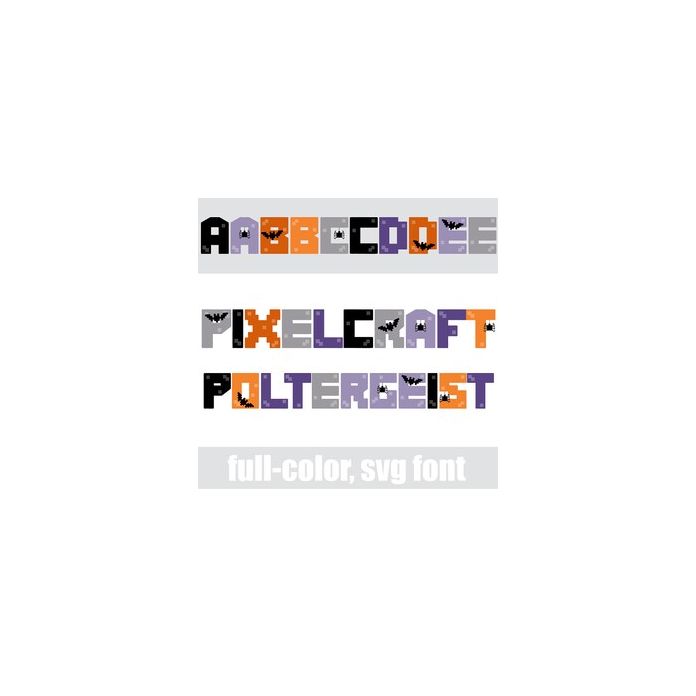
This full-color font features pixelated lettering and pixelated bats and spiders. There is an alt case w/ additional colors you can access through your system or Silhouette's glyph map.